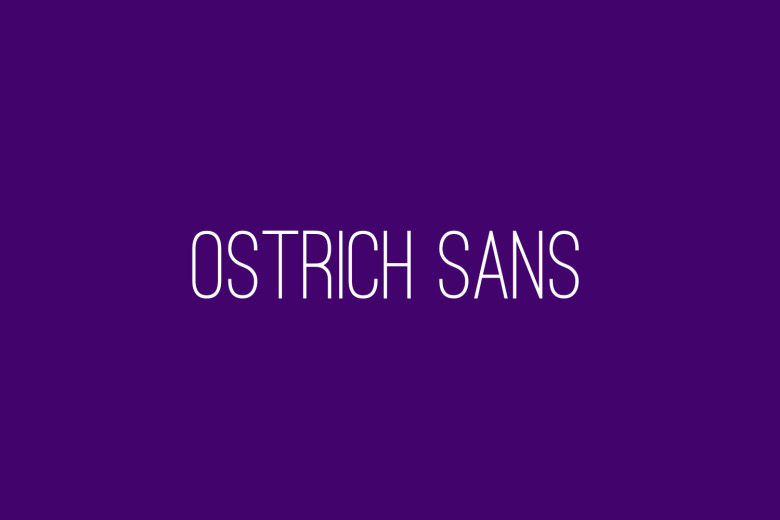
Ostrich Sans Font Family
Ostrich Sans Font is a gorgeous modern sans-serif with a very long neck. With a whole slew of styles.
Ostrich Sans Inline is the most recent to the family and has basic international character support and an italic style.
Ostrich Sans Serif Font Family